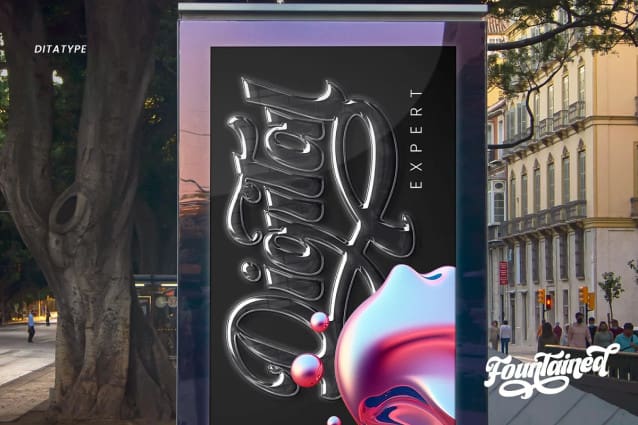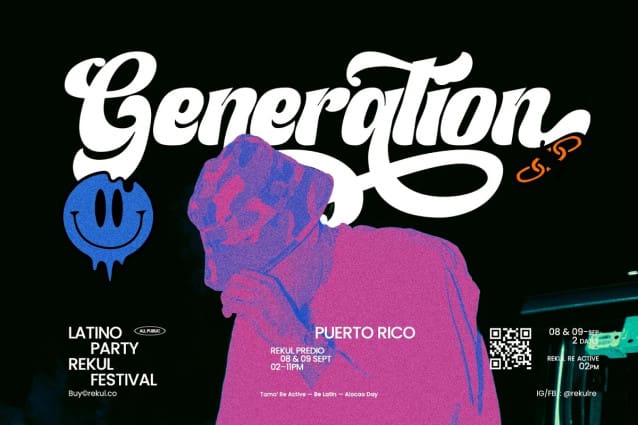
Fountained Script Font
Fountained Script Font is a luxurious script font that beautifully marries sophistication with a touch of playful elegance. The characters in Fountained boast a generous thickness, making each stroke exude opulence and a sense of grandeur. The swinging ends, resembling graceful flourishes, bring a touch of movement and style to the font, ensuring that Fountained stands out as a distinctive script font.